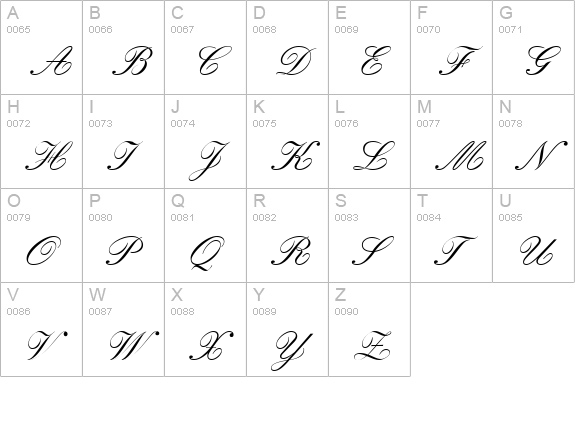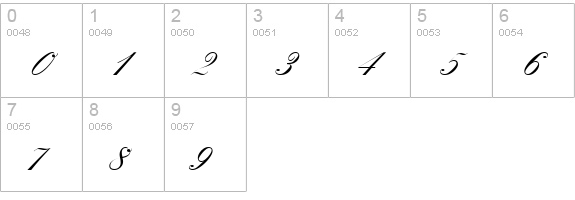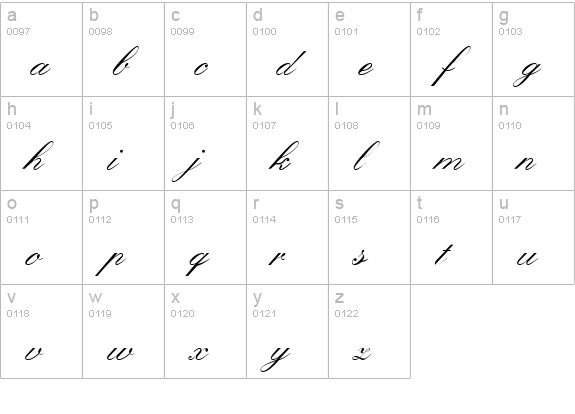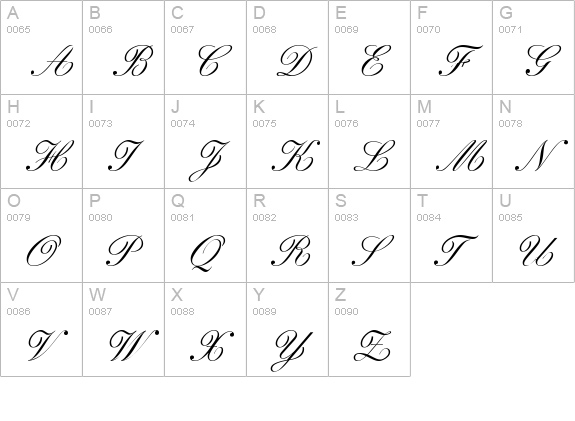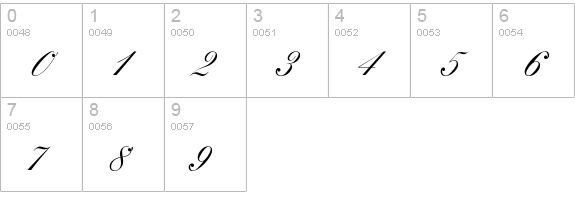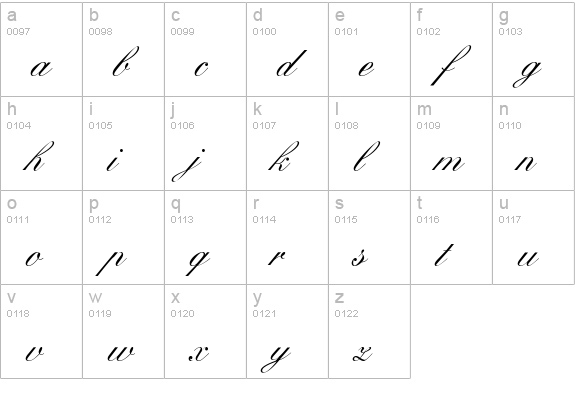
Quill Script SSi Font Details
Quill Script SSi font is a delightful and elegant typeface that adds a touch of sophistication to any design project. With its smooth and flowing strokes, this font captures the essence of traditional calligraphy, making it perfect for invitations, wedding stationery, and other formal occasions. This font features a unique combination of thin and thick lines, creating a harmonious balance that is pleasing to the eye. Its graceful curves and intricate details give each letter a sense of movement and life, making it a truly captivating choice for both print and digital designs. One of the best parts about Quill Script SSi font is that it is free! That's right, you can download this stunning typeface at absolutely no cost from FontsMarket.com. Whether you are a professional designer or simply someone who appreciates beautiful typography, this font is a must-have in your collection. Not only is Quill Script SSi font freely available, but it also comes with a wide range of glyphs and special characters, allowing you to add a personal touch to your designs. Whether you want to create elegant wedding invitations, eye-catching logos, or stylish branding materials, this font has everything you need to make a lasting impression. So why wait? Download Quill Script SSi font today from FontsMarket.com and let your creativity soar. Whether you're designing for a special occasion or simply want to add a touch of elegance to your everyday projects, this font is sure to become your go-to choice. Don't miss out on this incredible opportunity to enhance your designs with the beauty and grace of Quill Script SSi font.